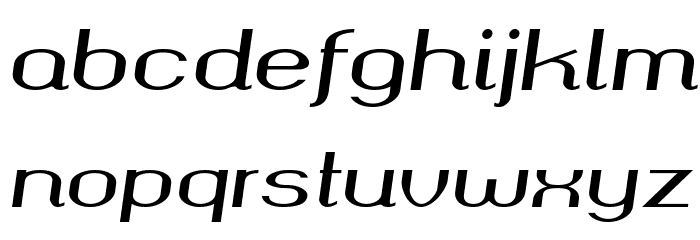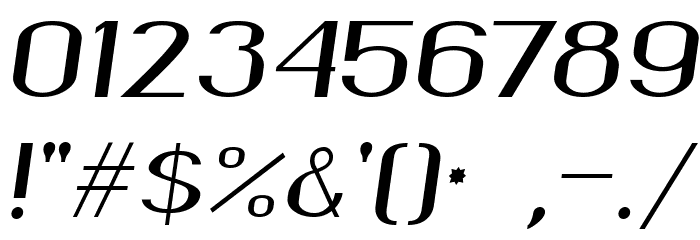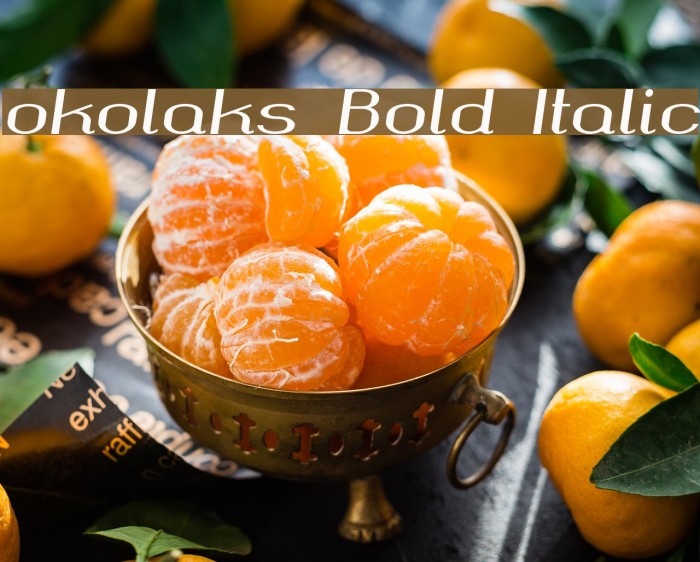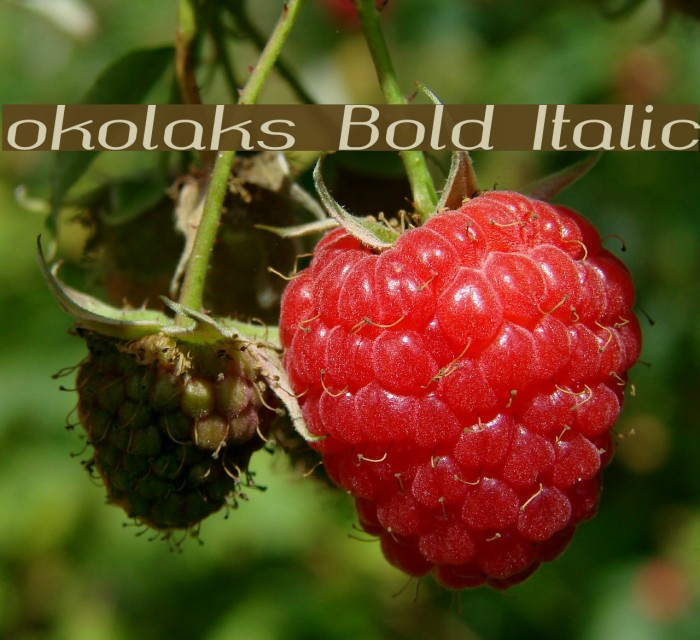
okolaks Bold Italic Font
This font features a bold and italicized style with a modern and sleek appearance. The characters are slightly slanted, giving a dynamic and forward-moving feel. The strokes are consistent in weight, providing a uniform look across all characters. The uppercase letters are tall and commanding, while the lowercase letters maintain a smooth flow. The numbers are clear and easily distinguishable, and the special characters are well-integrated into the overall design. This font is suitable for projects that require a contemporary and energetic vibe.
- Proposed Projects: Ideal for branding, advertising, headlines, and digital media projects.
- Category: Sans-Serif
- Use Case: Headlines, Logos, Branding